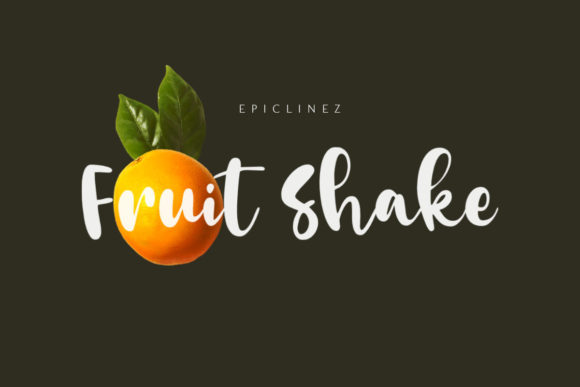
Welcome to the realm of calligraphy elegance, where every stroke tells a tale of charm and delicate beauty. "Fruit Shake," the enchanting script font, invites you to dive into a world of creativity and self-expression. Conceptualized by the visionary artists at Epiclinez, this font exudes a whimsical aura, effortlessly capturing the essence of effortless chic.
Whether you're a seasoned designer or just starting your creative journey, "Fruit Shake" is your perfect companion. Its versatile nature seamlessly adapts to a wide spectrum of projects, from heartfelt invitations and personalized greeting cards to eye-catching logos and enchanting social media posts. Unleash your imagination and transform ordinary designs into extraordinary masterpieces.
Visualize the possibilities as "Fruit Shake" graces your Cricut engravings, adding a touch of playful sophistication to your home décor, fashion accessories, and personalized gifts. Its relaxed theme evokes a sense of tranquility, making it ideal for creating serene wall art, charming mugs, and elegant tote bags that radiate warmth and positivity.
Step into the spotlight with "Fruit Shake," the font that commands attention without overpowering. Its lovely style shines through in every letter, captivating audiences and leaving a lasting impression. Whether you're crafting digital designs or physical creations, this font is guaranteed to elevate your projects to new heights of excellence.
Embrace the allure of "Fruit Shake" and let your creativity flourish. Its enchanting essence will add a touch of magic to your designs, leaving your audience spellbound. Dive into the world of calligraphy delight and discover the endless possibilities that await.